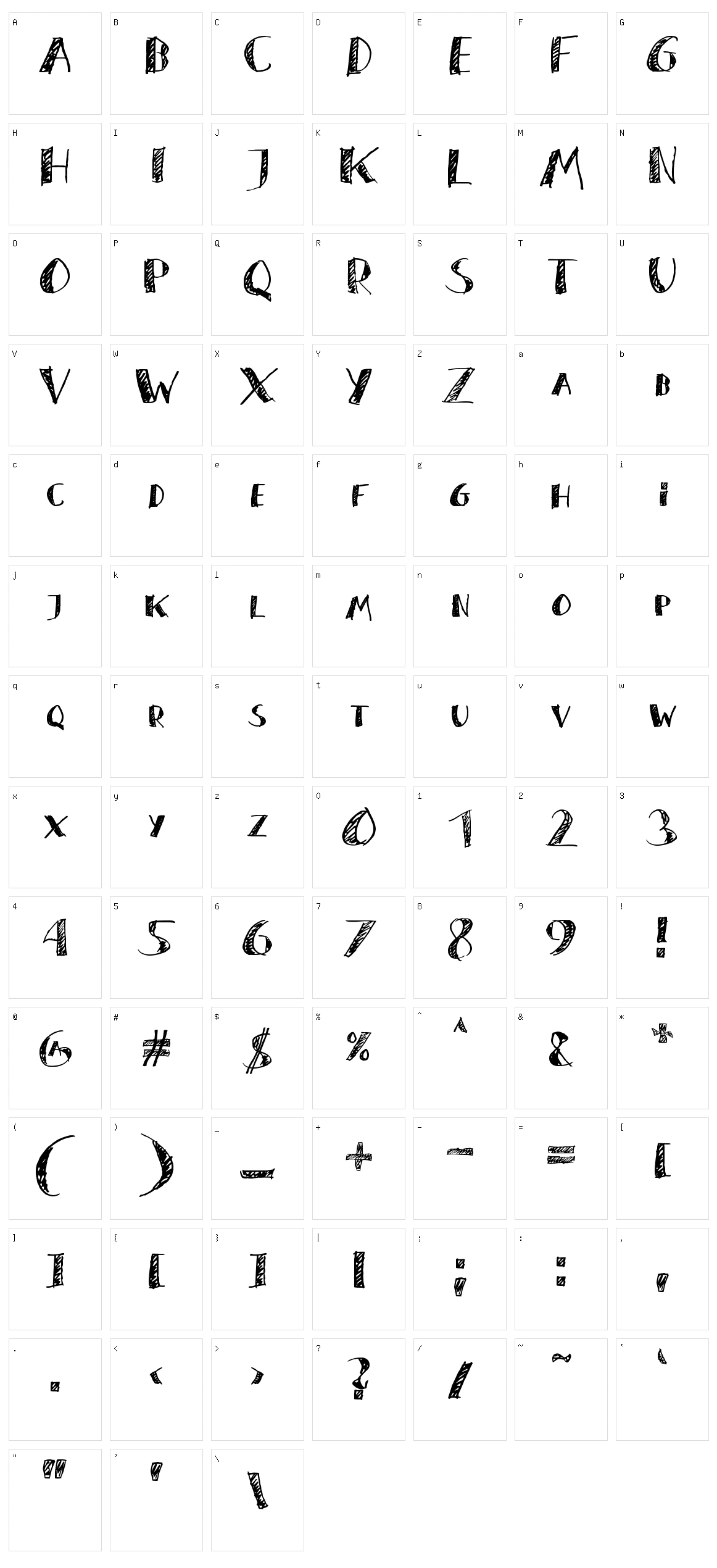
The free font zai Seagull Felt-tip Pen is carefully designed by Tomasz Skowroński, showcasing a thoughtful balance of creativity and usability and falls under the Cartoon font style. When you download the ZIP file, it contains only 186.59 KB of font files, making it lightweight and quick to download. Please review the license details below to understand permitted usage and distribution rights. If license information is not available, we recommend using this font for personal projects only or contacting the author directly for commercial usage permissions.